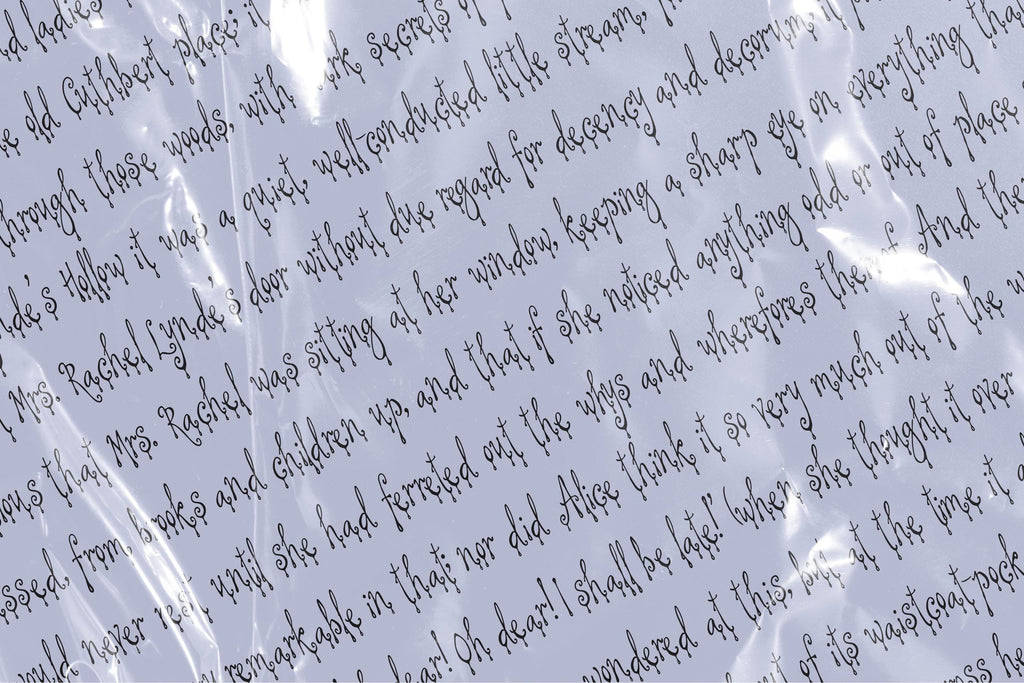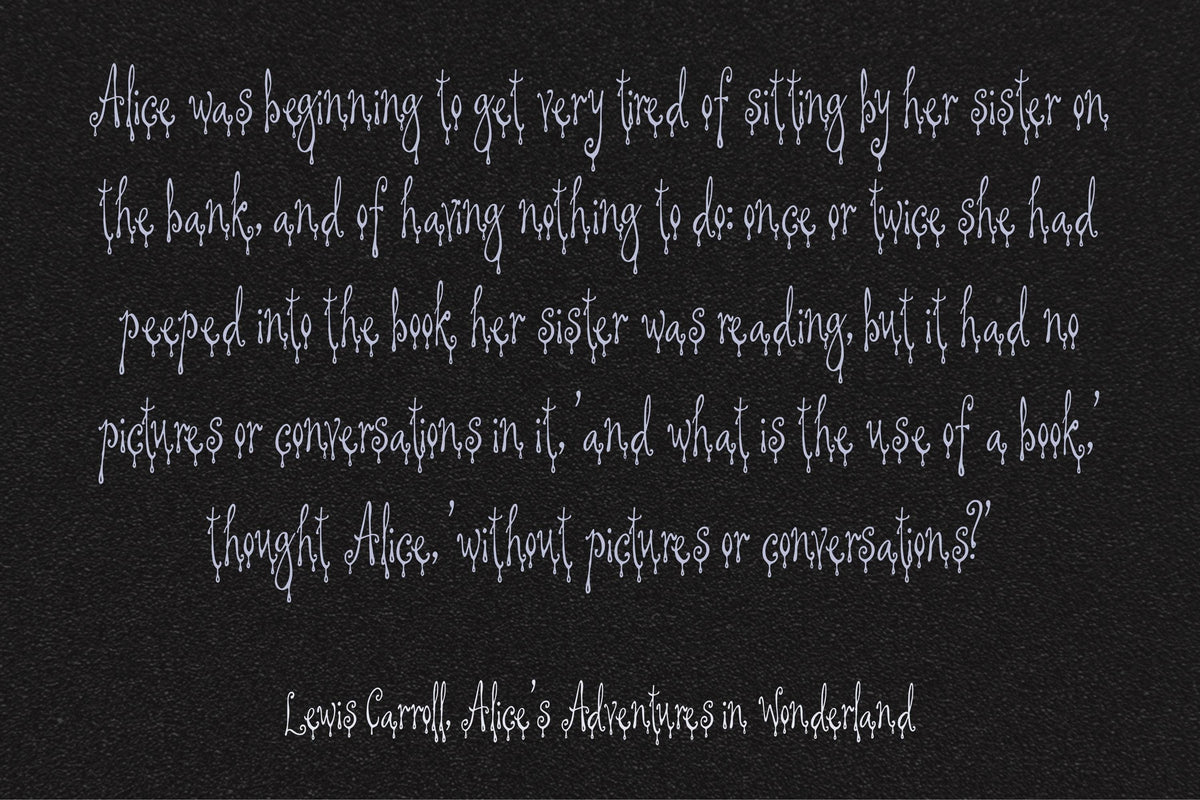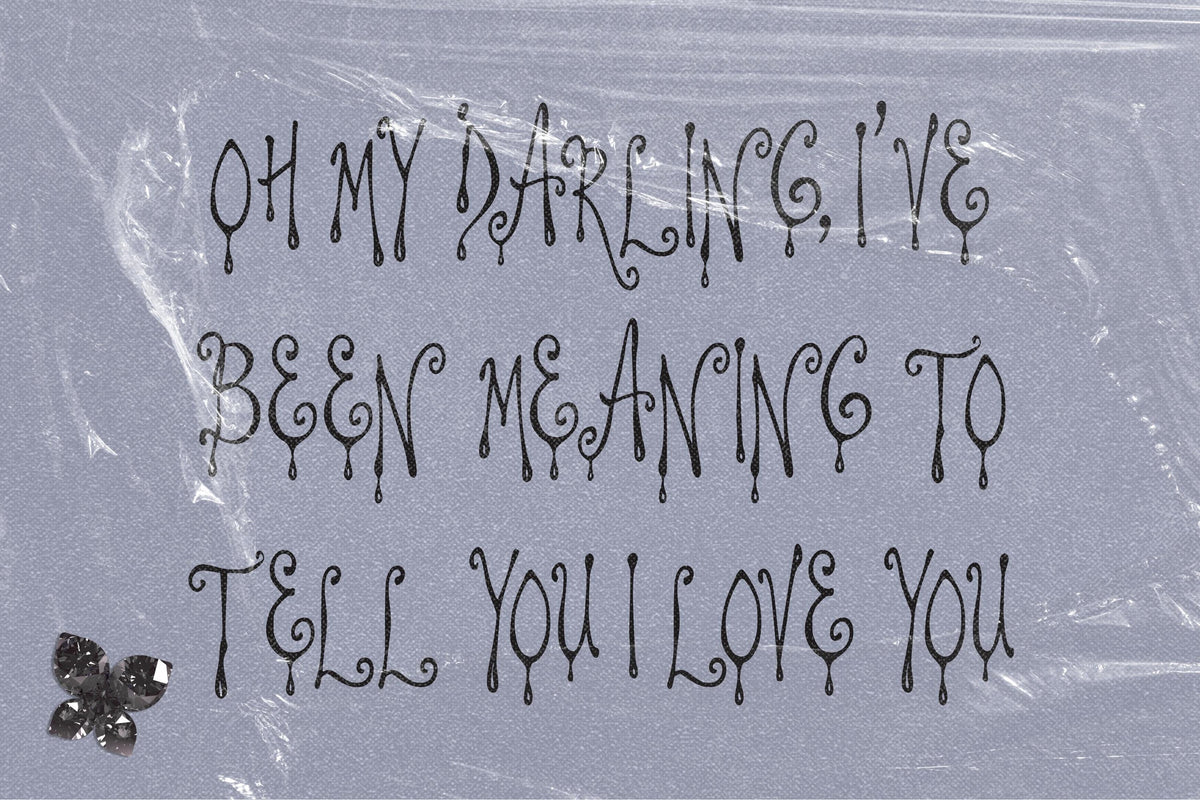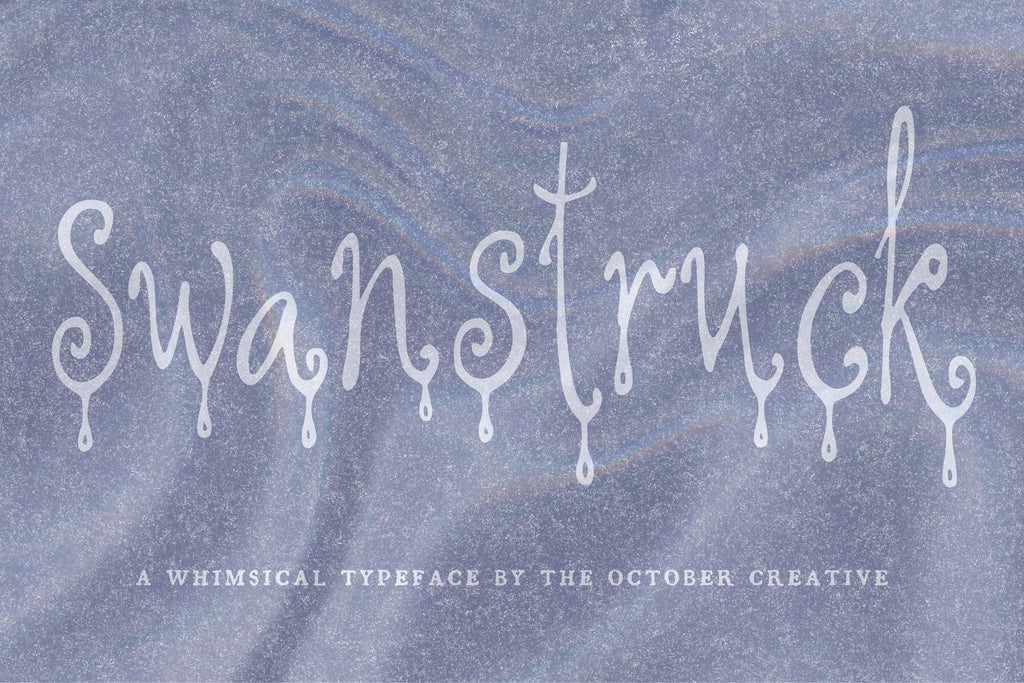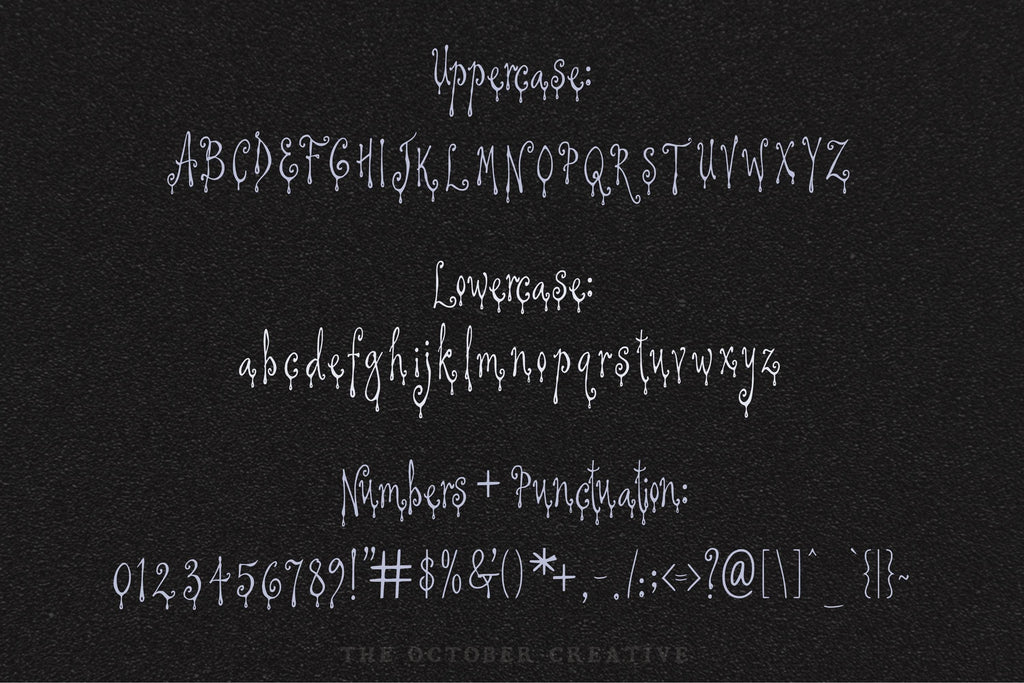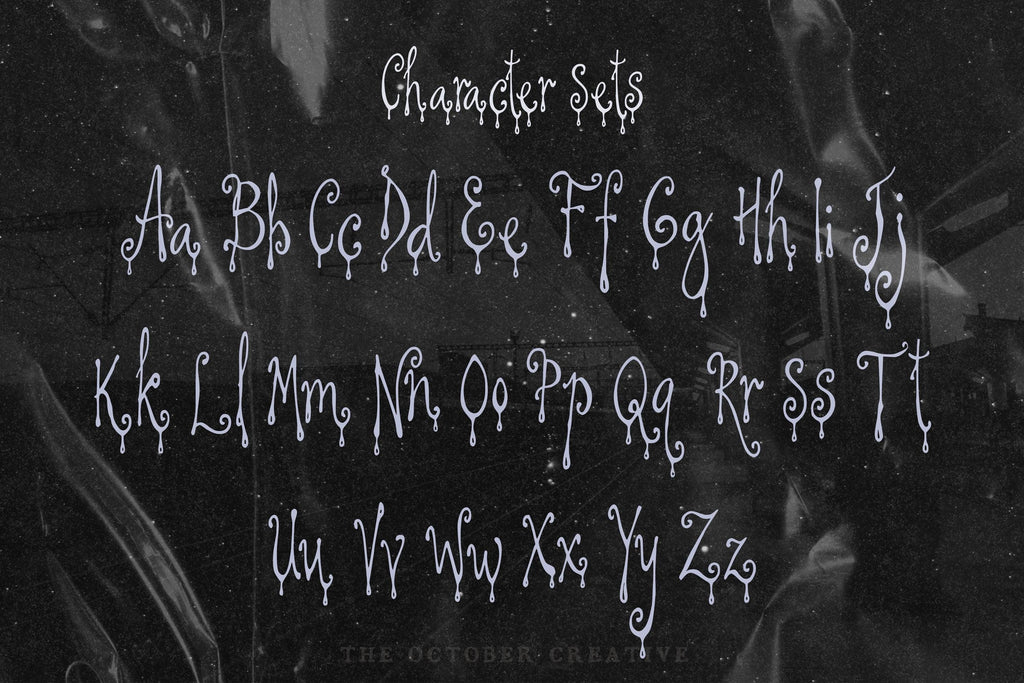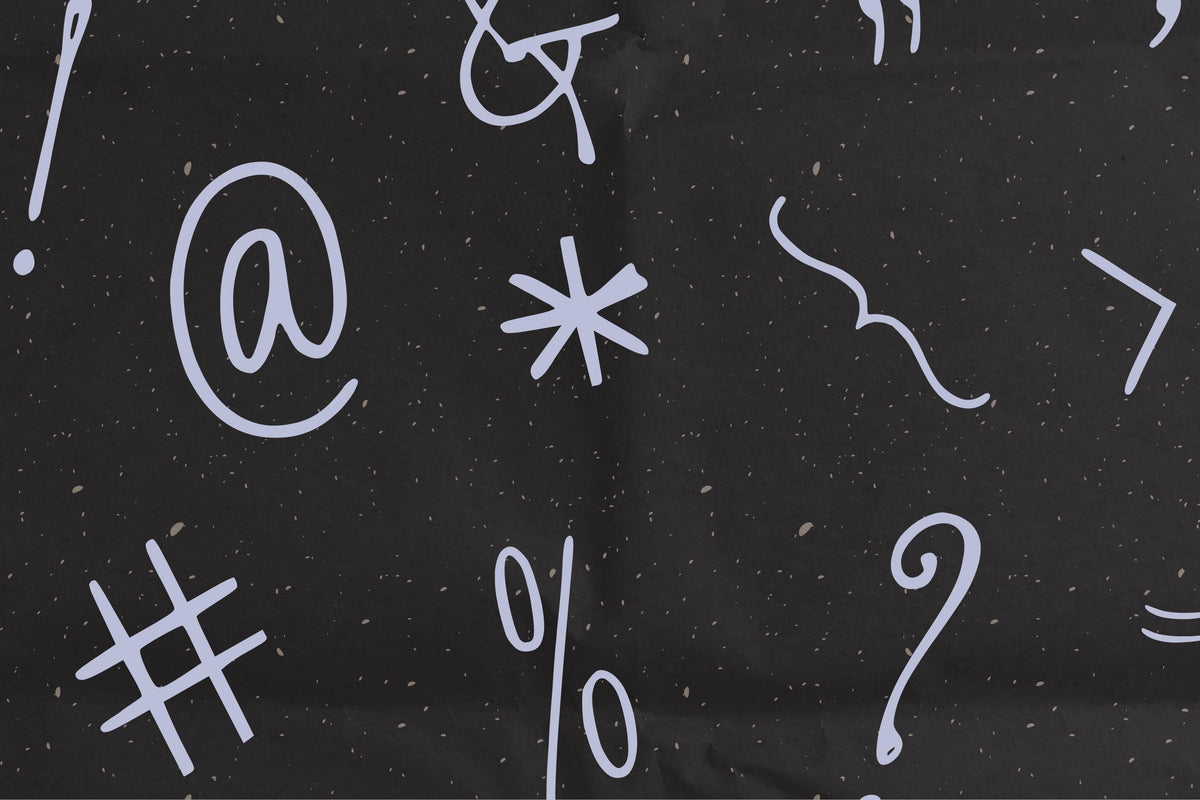
Swanstruck Font
Swanstruck draws long drips from delicate, upright letters for an eerie, trailing finish. Try it on ghost story covers, Halloween invitations, and candlelit party menus where the lettering can add a little shiver.
- One style: Swanstruck Regular